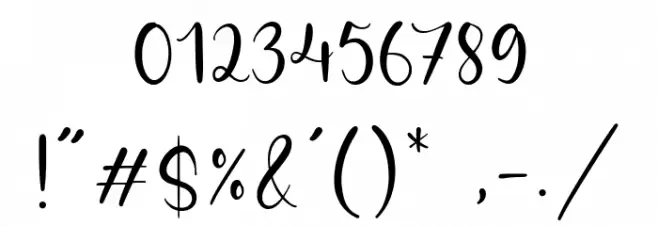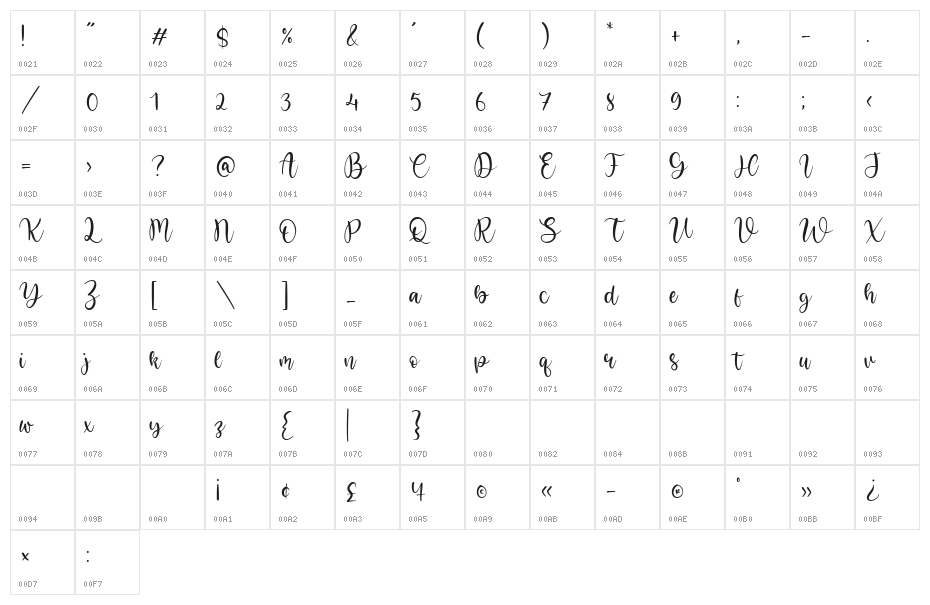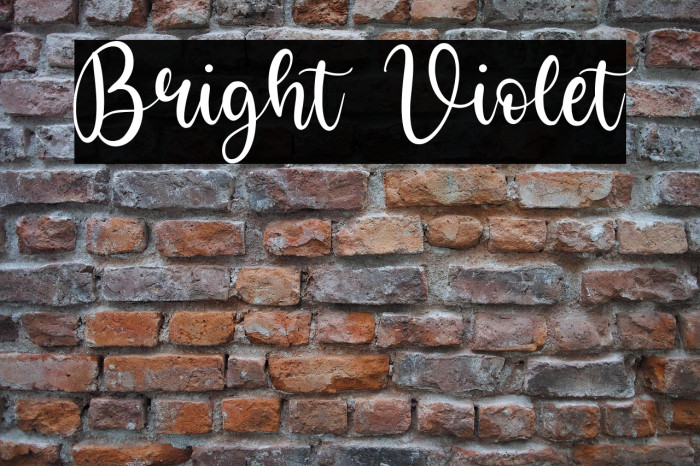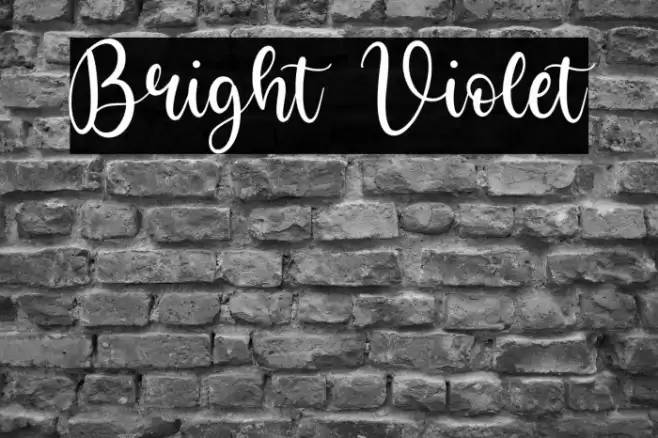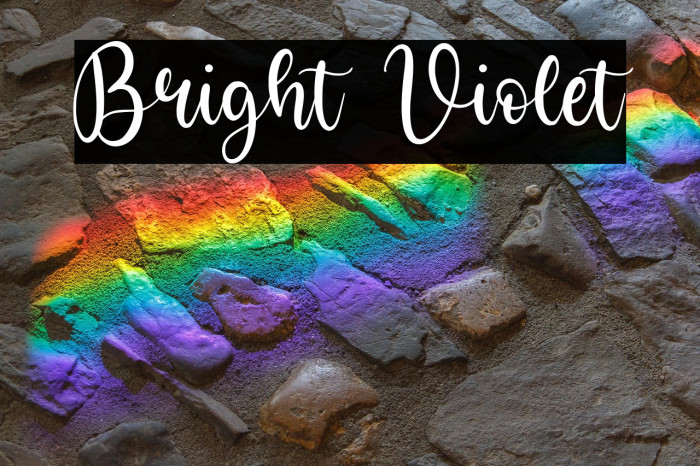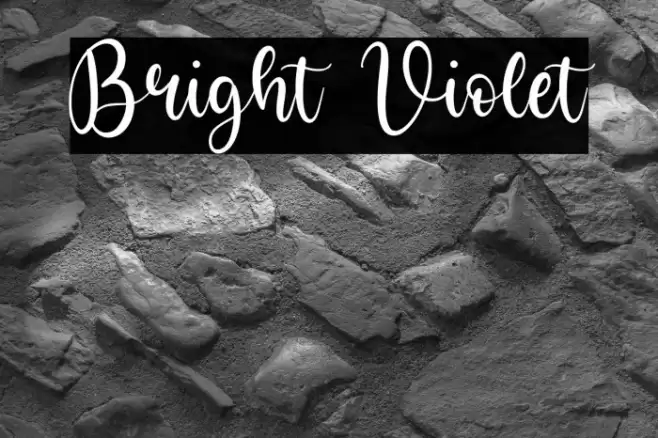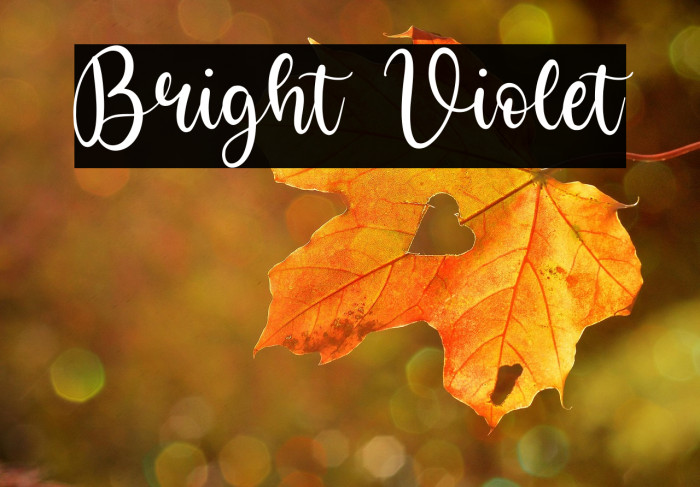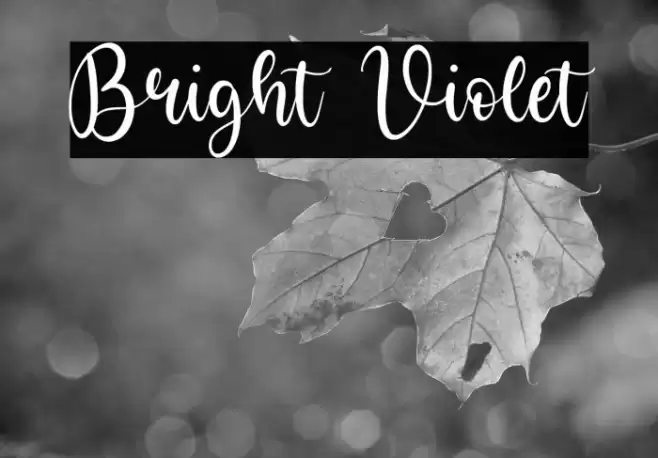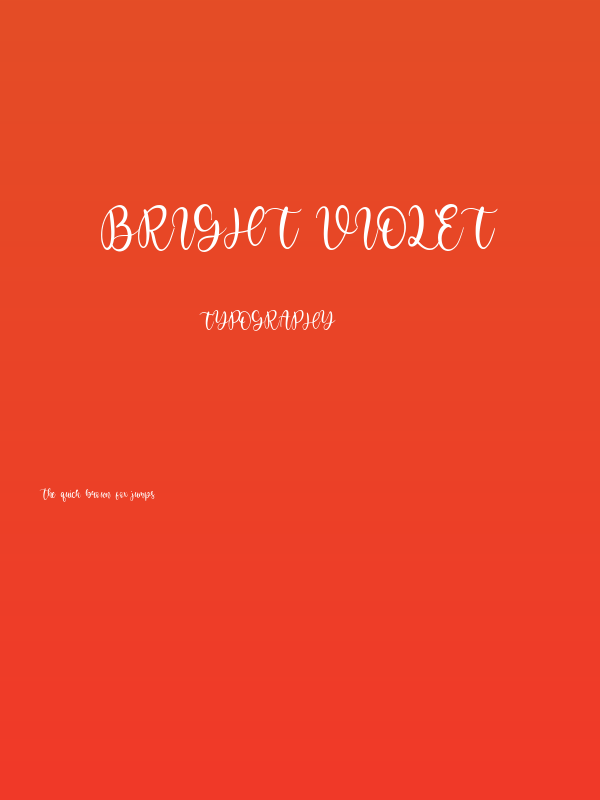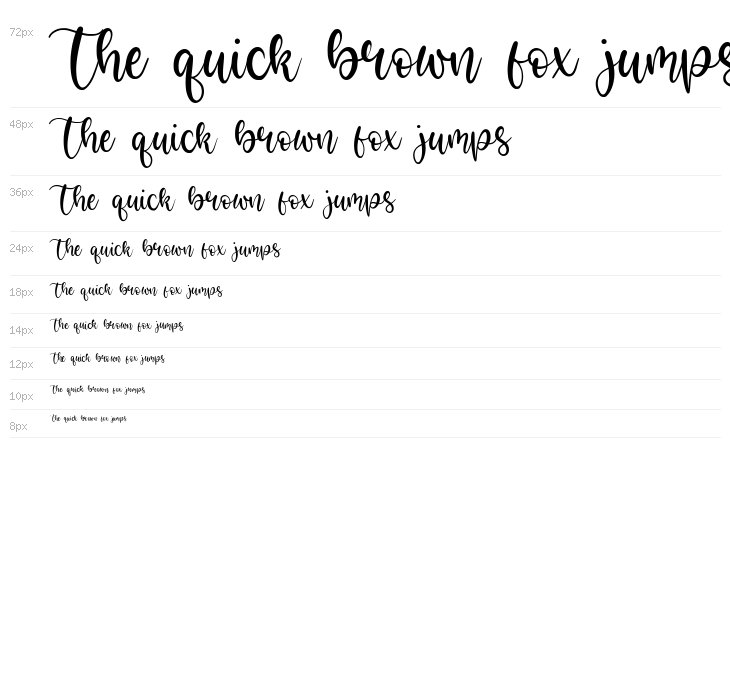
Bright Violet Font
This font exudes a playful and elegant script style, characterized by its flowing, interconnected letters that mimic the fluidity of handwriting. The uppercase letters are ornate, with sweeping curves and loops that add a touch of sophistication. The lowercase letters maintain a consistent style, with rounded forms and smooth transitions between strokes. The numerals are clear and legible, maintaining the same cursive flair. Special characters are thoughtfully designed to match the overall aesthetic, ensuring a cohesive look across all text. This font is perfect for projects that require a personal, artistic touch.
| Proposed Projects | Ideal for wedding invitations, greeting cards, branding, and social media graphics. |